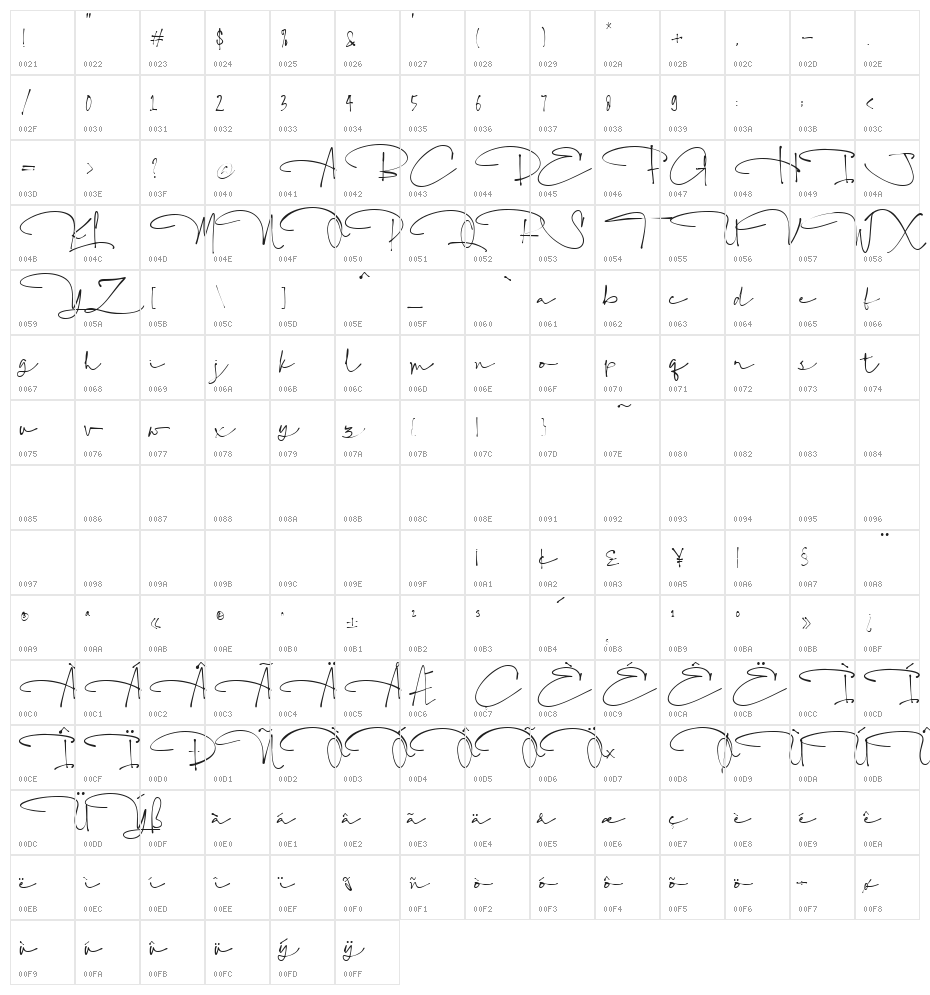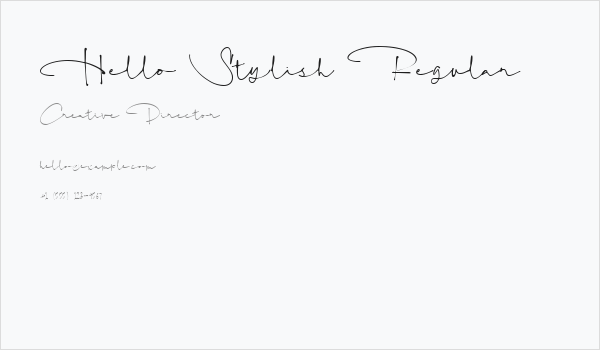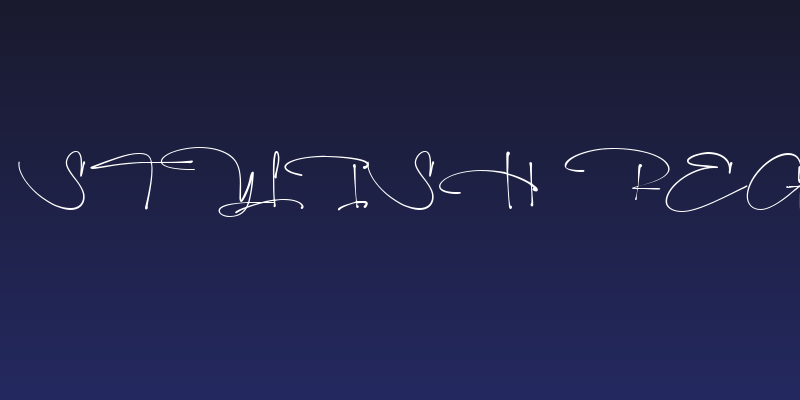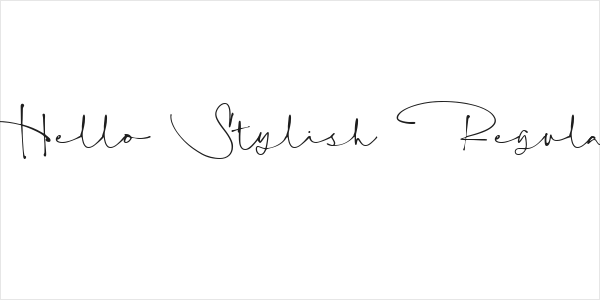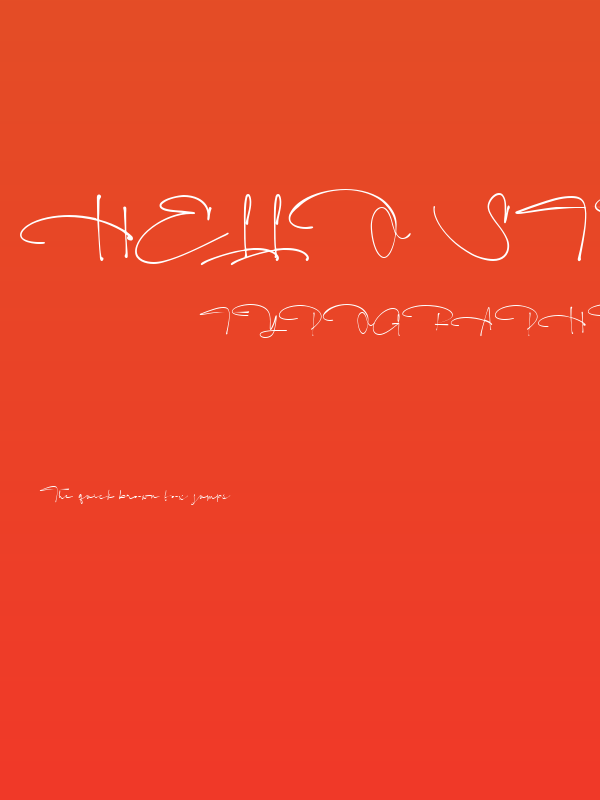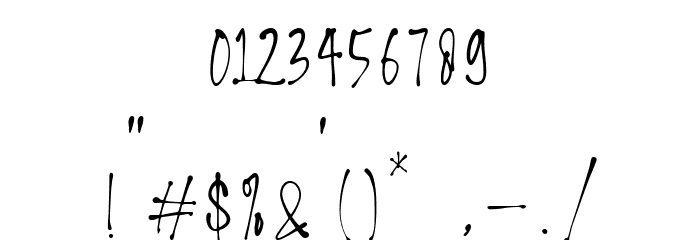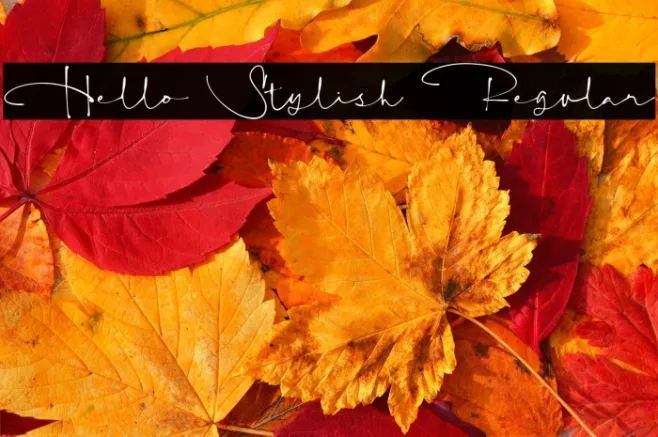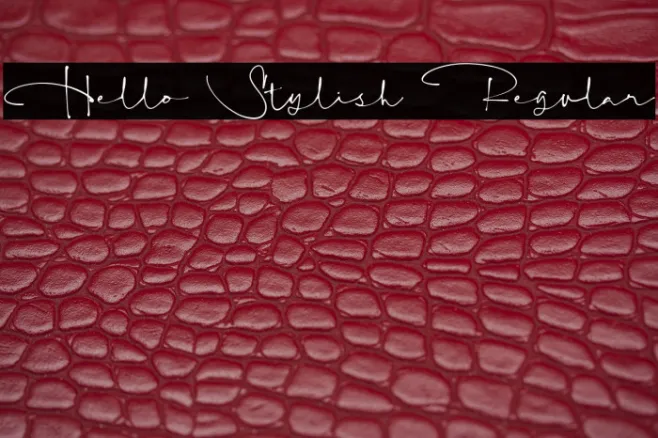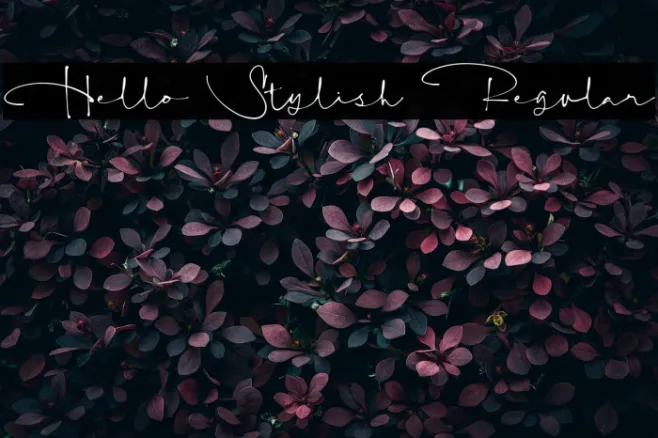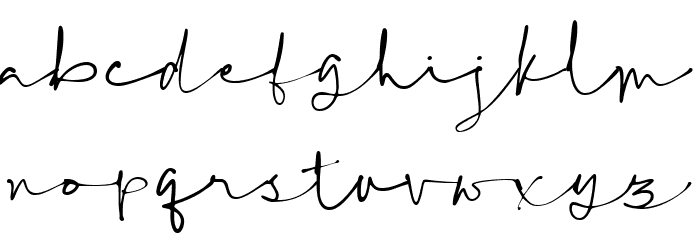
Hello Stylish Regular Font
Hello Stylish Regular Description
This font features a stylish and elegant script design, characterized by its flowing and interconnected letterforms. The uppercase letters exhibit a unique blend of curves and loops, creating a sophisticated and artistic appearance. The lowercase letters continue this fluidity, with smooth transitions and a handwritten feel. The numerals are clear and maintain the script style, while the special characters integrate seamlessly with the overall aesthetic. This font exudes a sense of creativity and elegance, making it suitable for projects that require a personal and artistic touch.
| Proposed Projects | Ideal for wedding invitations, greeting cards, branding, and artistic projects. |